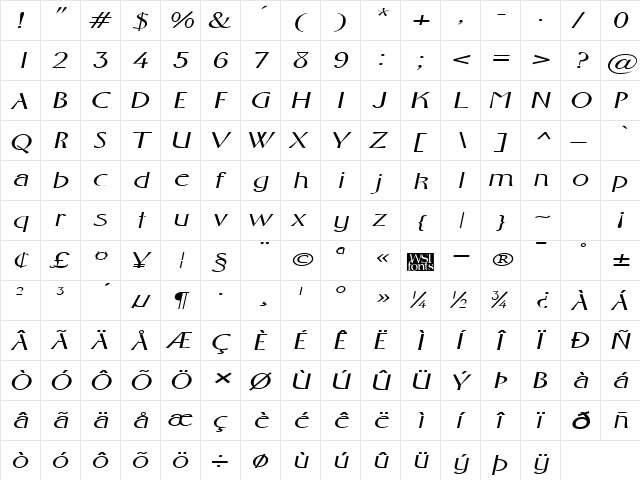
FosterExpanded Italic
Design Context for FosterExpanded Typeface
FosterExpanded is a composed and adaptable typeface that performs quietly and consistently across a wide range of design contexts. The dynamic lean of this cut emphasises speed and emphasis in any layout.
Pro Tip: Try FosterExpanded for annotation and caption copy alongside an upright companion — the contrast in angle creates a dynamic but ordered typographic system.